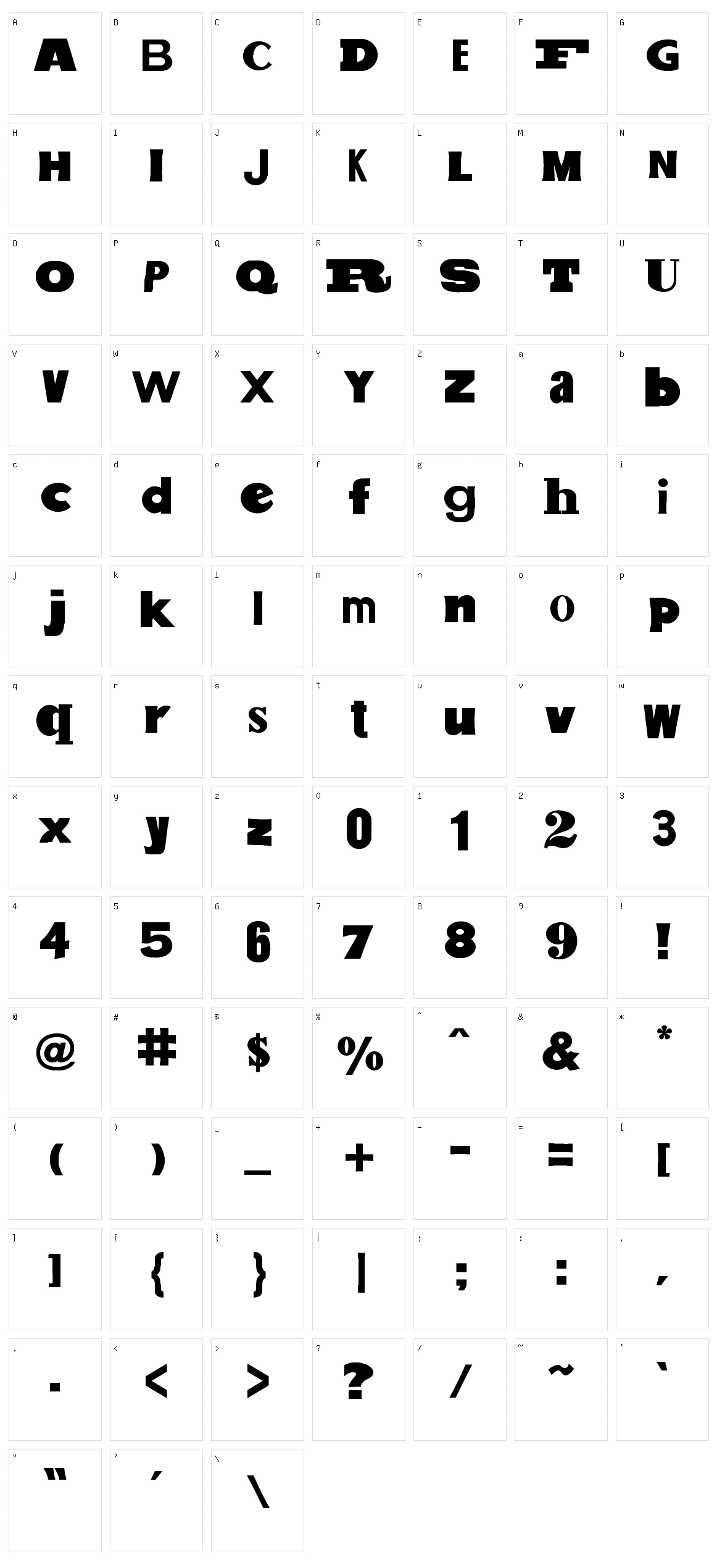
The free font Salt Pet Non Eroded is carefully designed by Galdino Otten Fonts, showcasing a thoughtful balance of creativity and usability and falls under the Distorted font style. When you download the ZIP file, it contains only 383.27 KB of font files, making it lightweight and quick to download. Please review the license details below to understand permitted usage and distribution rights. If license information is not available, we recommend using this font for personal projects only or contacting the author directly for commercial usage permissions.